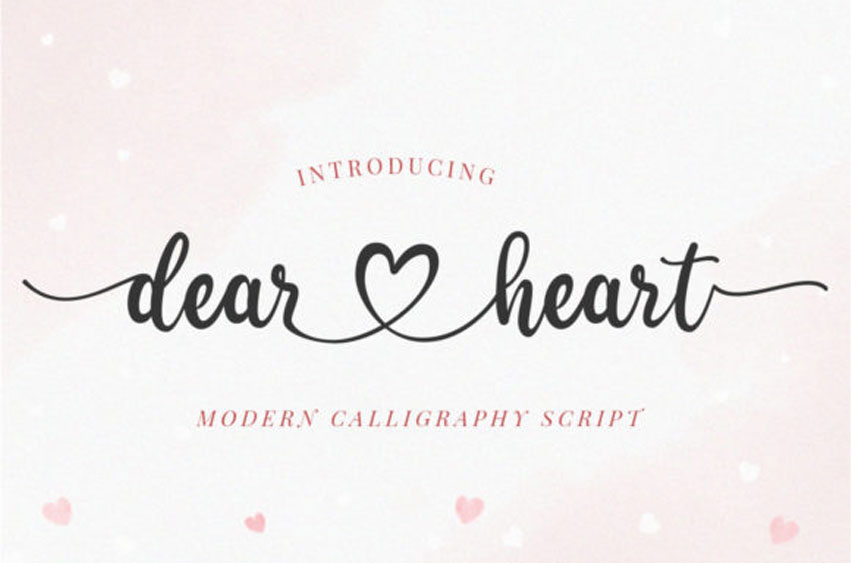
Dear Heart Font is a romantic handwritten font. Perfect for writing Valentine’s Day letters or invitations, this font will most certainly elevate your designs.